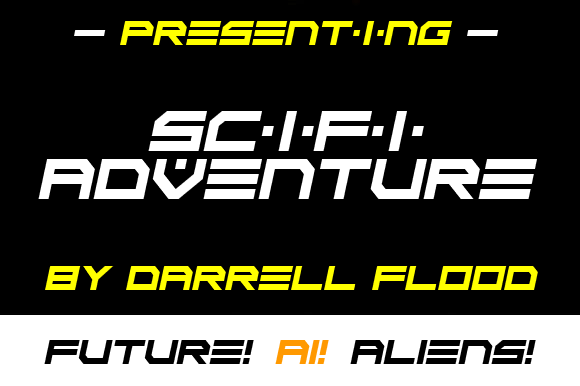
Introduction to Scifi Adventure Font
A fantastic futuristic font in a slick sci-fi style.
Perfect for alien encounters, space exploration and high tech themes .
Key Features of Scifi Adventure Font